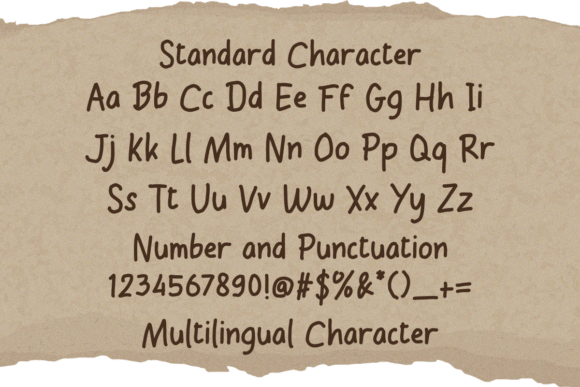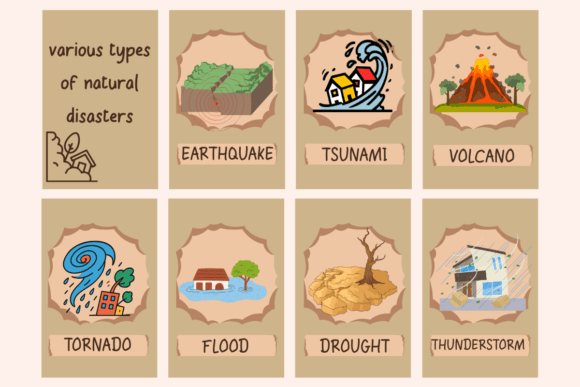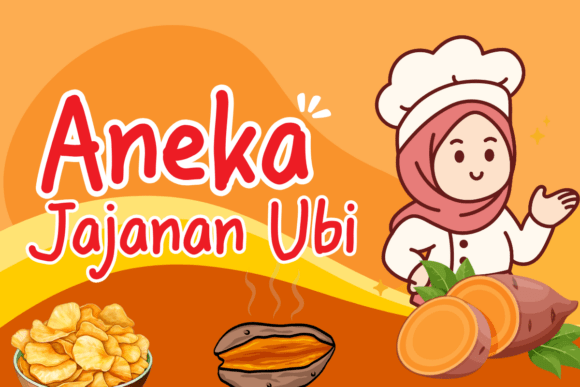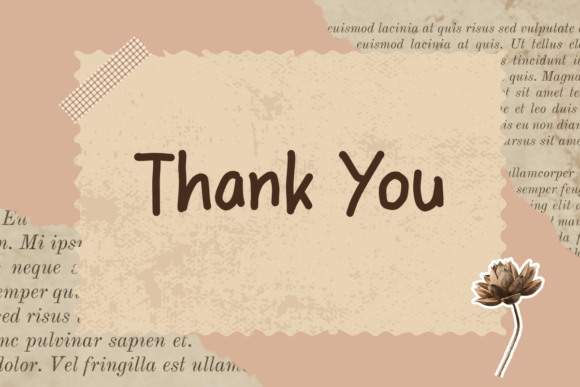
Discover the Whimsical World of Apa Ajalah Gitu Font
Step into a world of whimsy and wonder with Apa Ajalah Gitu, a charming storybook display font designed to bring a touch of handcrafted magic to your creative projects. This delightful typeface is perfect for designers and crafters looking to add a dash of personality and warmth to their work.
The Inspiration Behind Apa Ajalah Gitu
Apa Ajalah Gitu is a font that embodies the friendly warmth of traditional children’s book illustrations. Its soft, rounded letterforms have a gentle, organic flow that immediately evokes a sense of nostalgia and wonder. The font’s “innocent-wonder” soul and approachable weight make it an ideal choice for a variety of creative projects, from nursery branding to whimsical teacher resources.
Key Features of Apa Ajalah Gitu Font
- Soft and Rounded Letterforms: Apa Ajalah Gitu features soft, rounded letterforms that give it a friendly and approachable feel.
- Gentle Organic Flow: The font’s letters have a gentle, organic flow that mimics the warmth of traditional children’s book illustrations.
- Innocent-Wonder Soul: Apa Ajalah Gitu has an “innocent-wonder” soul that makes it perfect for projects that require a touch of whimsy and magic.
- Approachable Weight: The font’s approachable weight makes it easy to read and suitable for a variety of applications.
Perfect for a Variety of Creative Projects
Apa Ajalah Gitu is a versatile font that can be used in a variety of creative projects, including:
- Nursery Branding: Create a warm and welcoming brand identity for your nursery with Apa Ajalah Gitu.
- Whimsical Teacher Resources: Add a touch of personality to your teacher resources, such as worksheets, posters, and activity sheets.
- Playful Classroom Decor: Use Apa Ajalah Gitu to create engaging and interactive classroom decor, such as bulletin boards and display banners.
- Cinematic “Cottage-Core” Social Media Headers: Add a touch of whimsy to your social media headers with Apa Ajalah Gitu’s charming letterforms.
Why Choose Apa Ajalah Gitu Font?
Apa Ajalah Gitu is the premier choice for designers and crafters looking for a font that can add a touch of handcrafted magic to their creative projects. Here are just a few reasons why:
- Unique and Eye-Catching: Apa Ajalah Gitu is a one-of-a-kind font that is sure to grab attention.
- Easy to Read: The font’s approachable weight and clear letterforms make it easy to read.
- Versatile: Apa Ajalah Gitu can be used in a variety of creative projects, from digital designs to print materials.
Apa Ajalah Gitu is a charming storybook display font that is perfect for designers and crafters looking to add a touch of whimsy and wonder to their creative projects. With its soft, rounded letterforms, gentle organic flow, and “innocent-wonder” soul, this font is sure to bring a touch of handcrafted magic to your work. Whether you’re creating nursery branding, whimsical teacher resources, playful classroom decor, or cinematic “cottage-core” social media headers, Apa Ajalah Gitu is the premier choice.